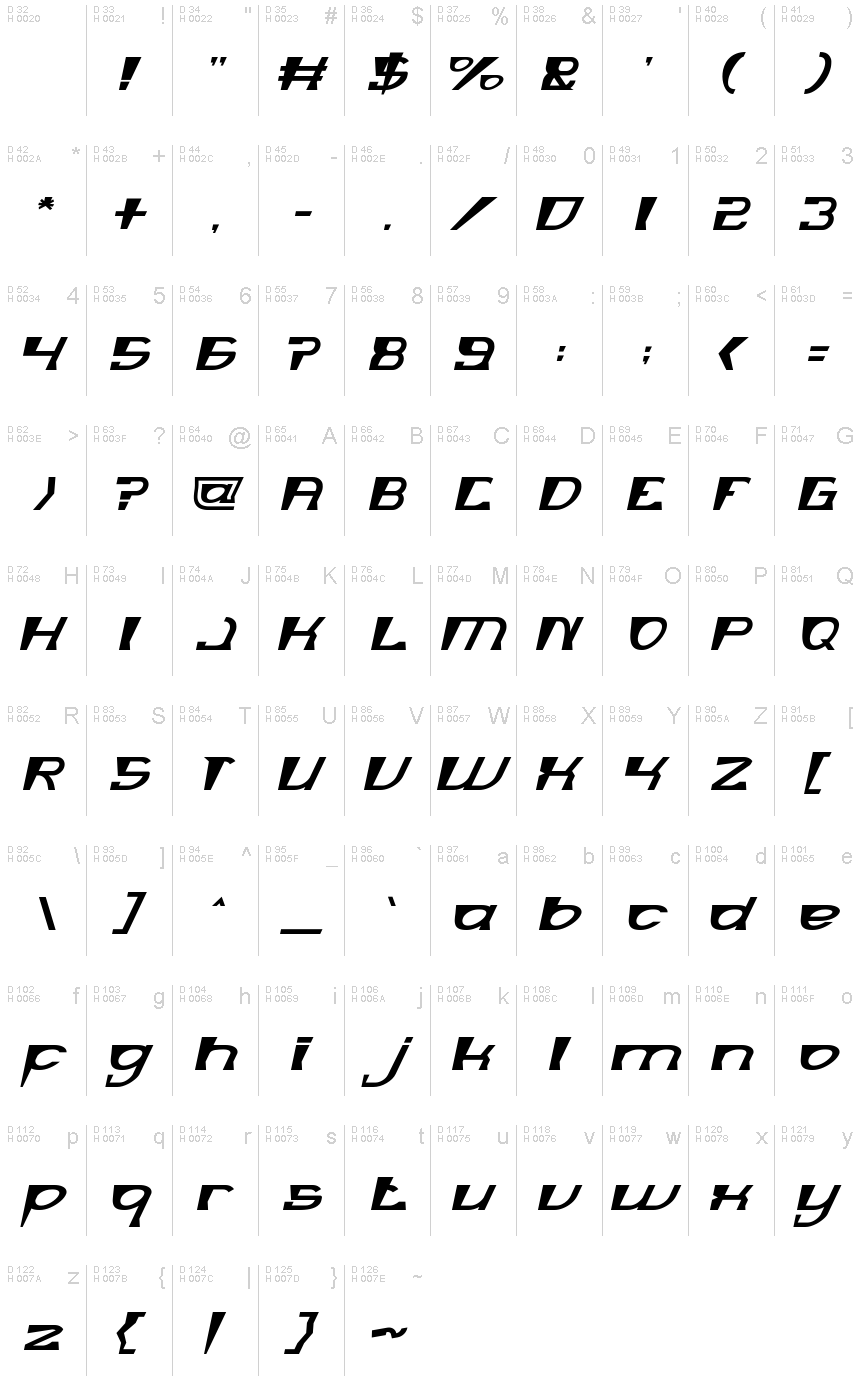
MERCURY Italic
Mercury Italic, crafted by Weknow, is a captivating display font that exudes a distinct techno-inspired persona. Its expanded width lends an air of bold, futuristic elegance, making it a standout choice for projects seeking to convey a sense of modern sophistication and technological prowess.
This font's refined, italicized strokes effortlessly blend geometric precision with a touch of organic fluidity, creating a visually striking balance that commands attention. Its versatile nature allows it to seamlessly integrate into a variety of design contexts, from cutting-edge branding and editorial layouts to dynamic digital interfaces and immersive multimedia experiences.